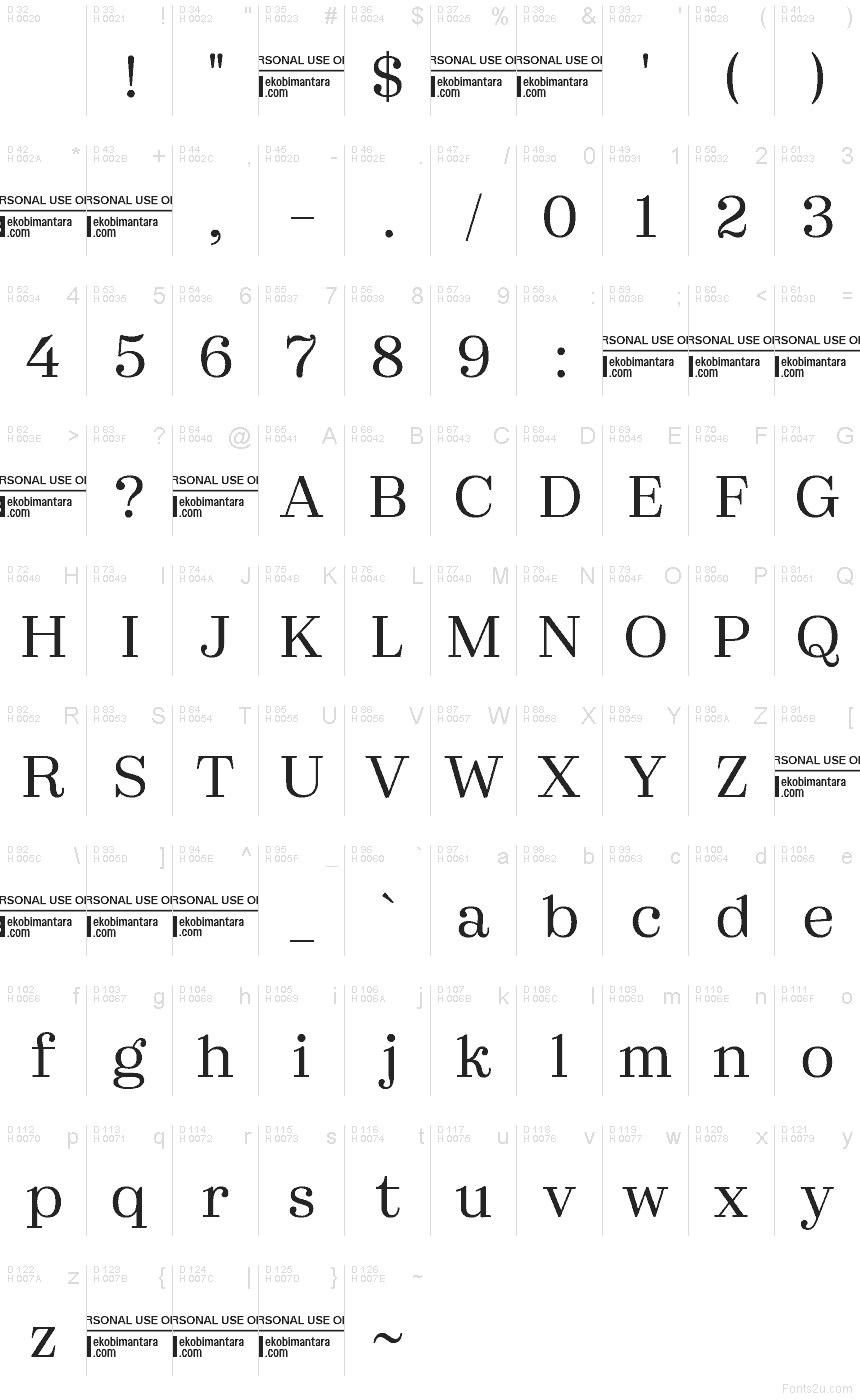
Marchise Trial Regular
Marchise font by Eko Bimantara is a free modern serif display font. It stands out with razor-thin hairlines meeting sturdy verticals, sculpted ball terminals, and crisp, square-cut serifs that feel both poised and decisive. The rhythm is tight and elegant, giving headlines a luxe snap without looking brittle—think glossy editorial energy with a tailored finish.
Using Marchise, headlines gain presence on fashion lookbooks, magazine mastheads, beauty packaging, wine labels, boutique logos, and book covers. Set it large to let those fine details breathe, and pair with a quiet grotesk sans for captions or body copy. This free font delivers refined drama that reads instantly premium.